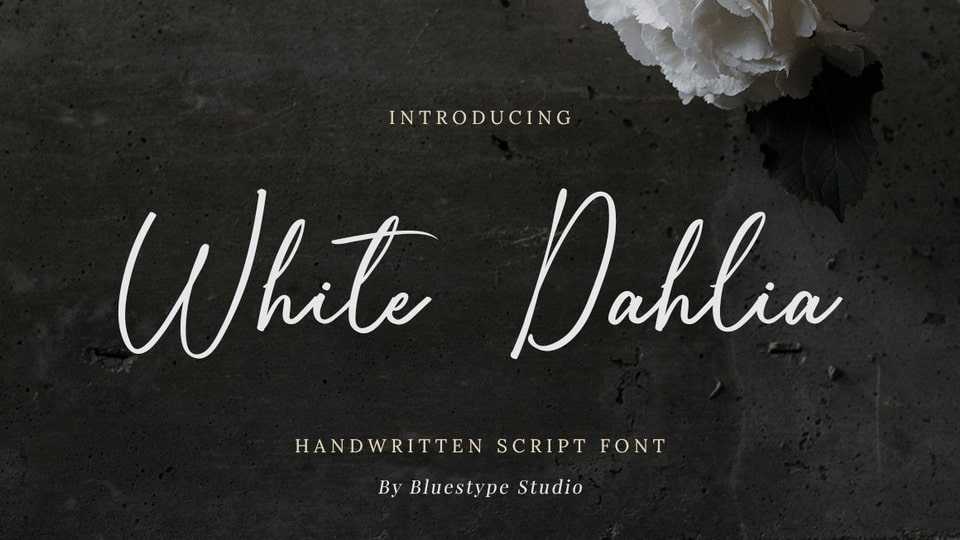
Download White Dahlia font, a dazzling handwritten typeface. This versatile script font has beautiful shapes for use from greeting cards to headlines and more guaranteed to add a romantic feel to your next project.